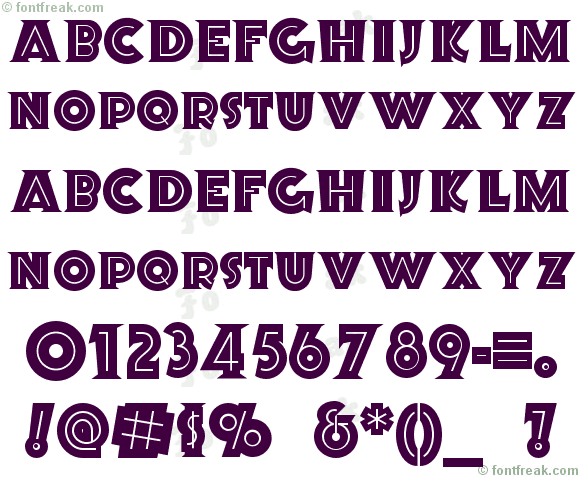
Orion Radio NF
About Orion Radio NF
Orion Radio NF is a distinctive display font designed by Nick Curtis, characterized by its bold and playful aesthetic. This font falls under the decorative category, making it an ideal choice for projects that require a touch of personality and flair. The visual characteristics of Orion Radio NF include a strong stroke weight with a slight contrast, which gives it a robust presence. The letterforms are rounded and feature unique decorative elements that enhance their visual appeal while maintaining legibility. The spacing between letters is well-balanced, allowing for easy readability even in larger sizes.
This font excels in various creative applications. It is particularly well-suited for movie posters, where its eye-catching style can help convey the film's theme. Additionally, Orion Radio NF works wonderfully for children’s book covers, where its playful design can attract young readers. Restaurant menus can also benefit from this font, adding a fun and inviting touch to the dining experience. Graphic designers seeking to create promotional materials for events will find this font an excellent choice due to its vibrant personality.